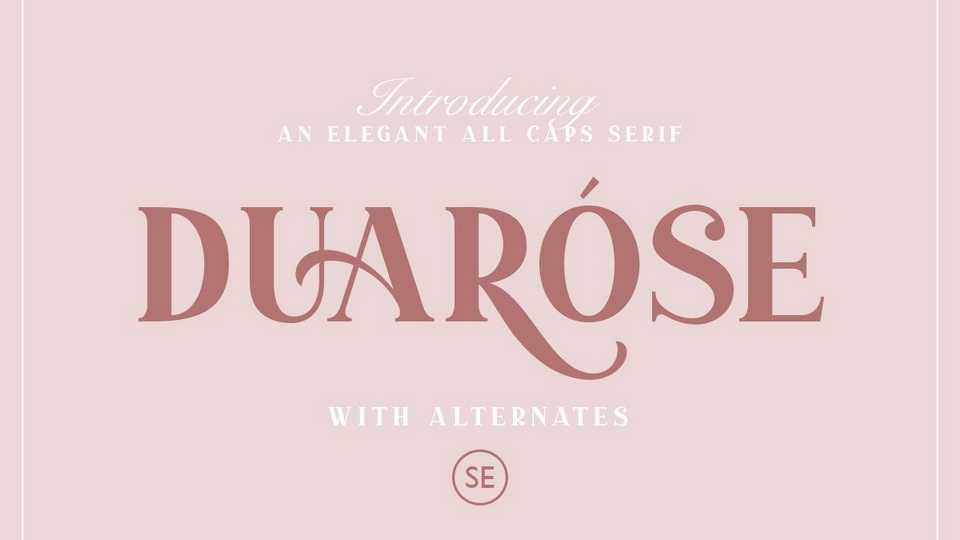
Download Duarose font, a classic and elegant serif typeface with a bunch of alternates to make your presentation or logo even more stunning and stand out.